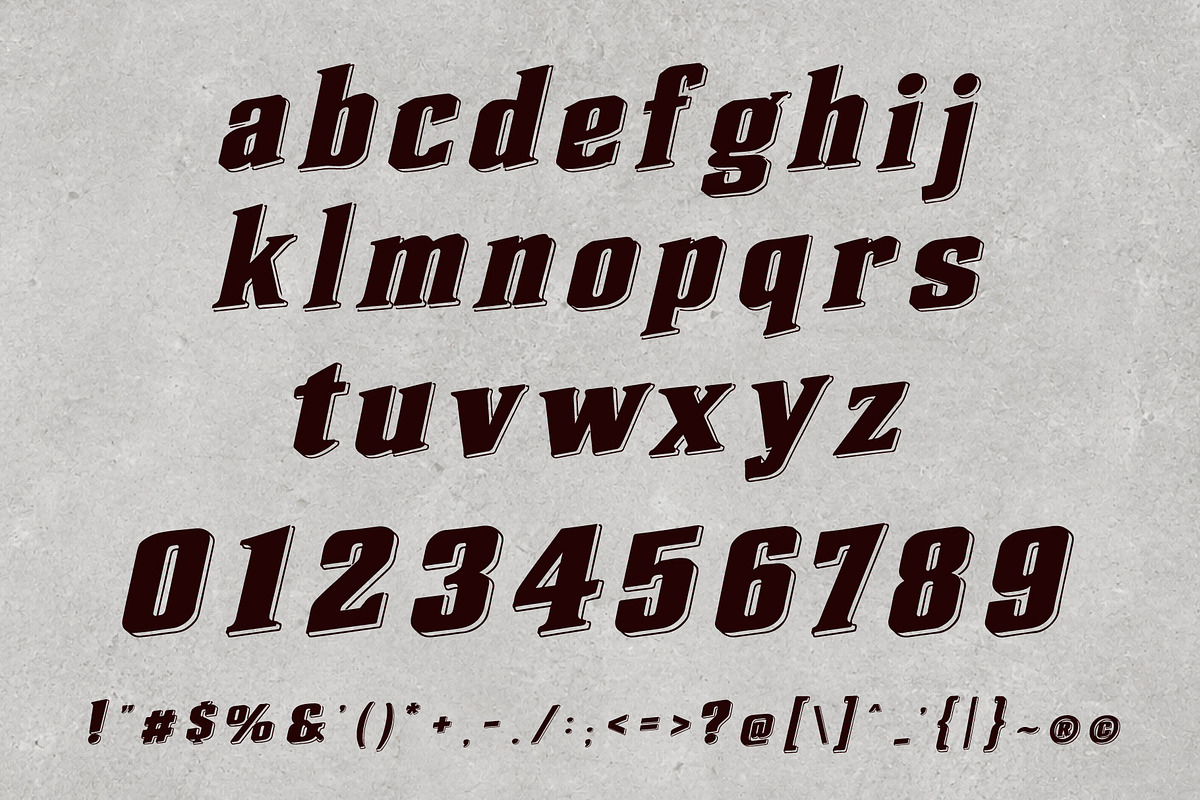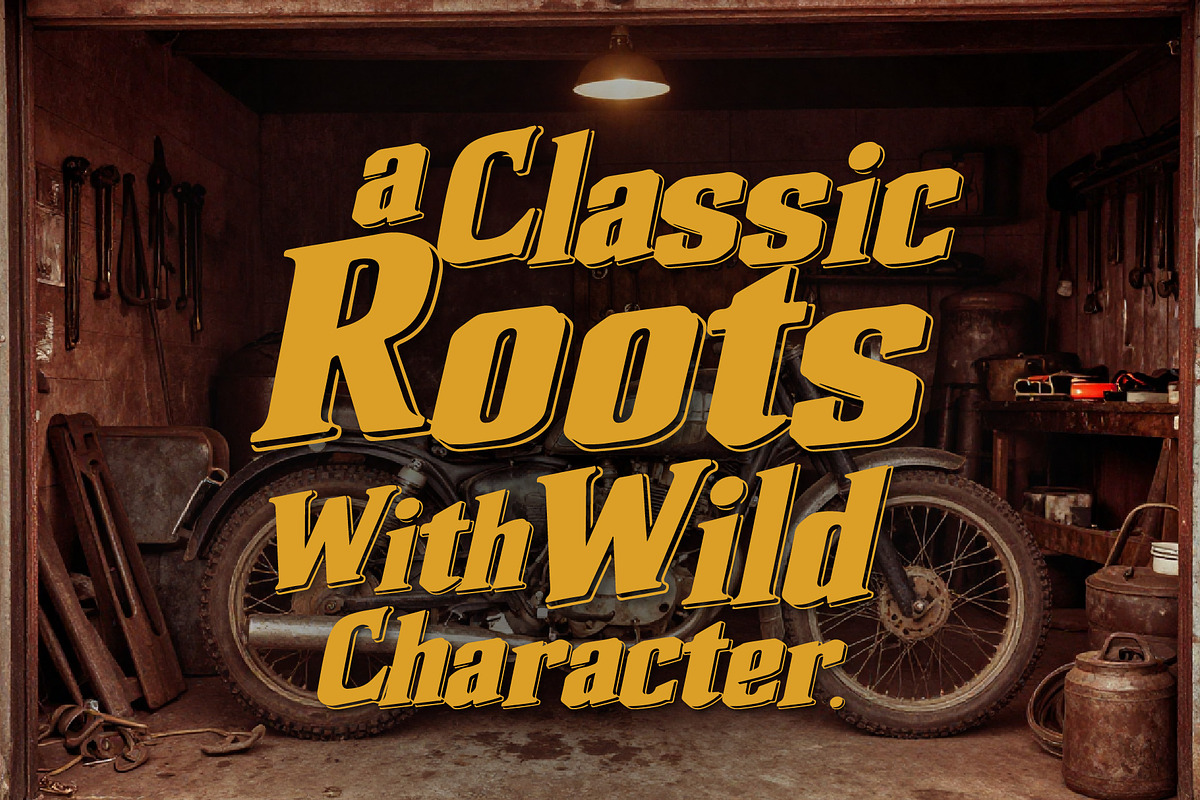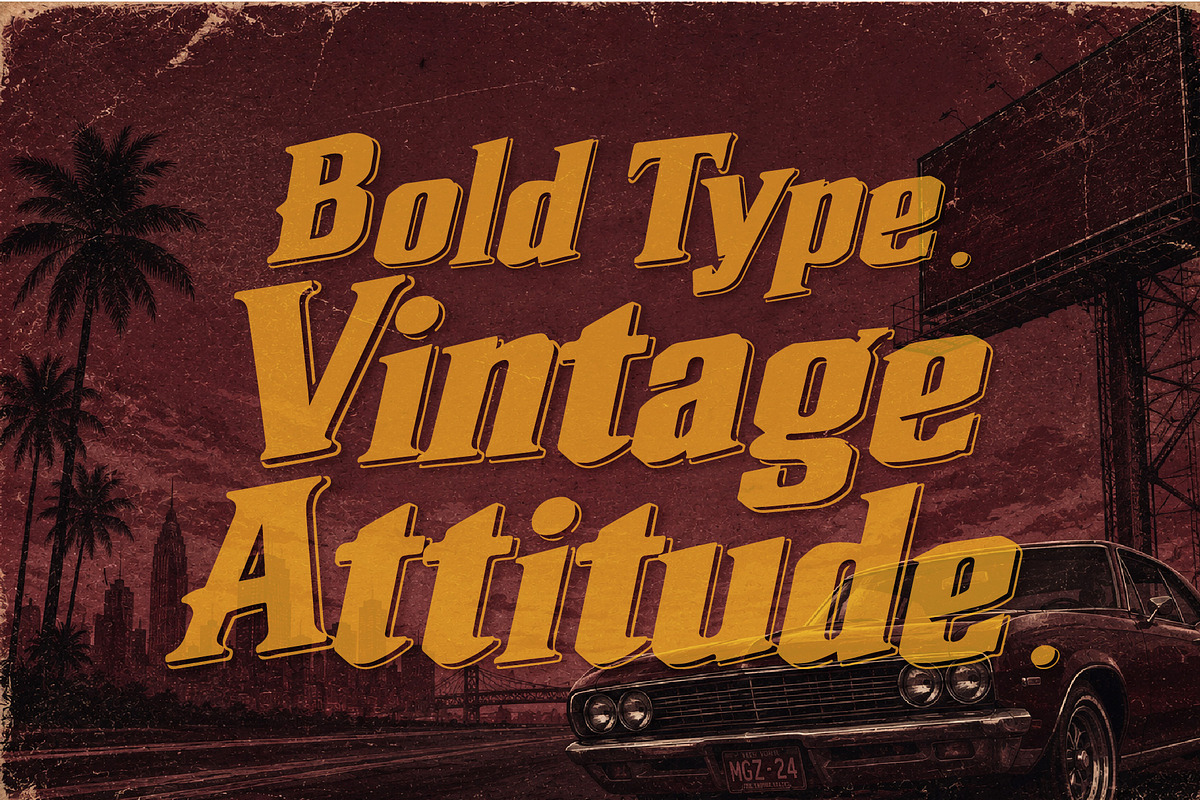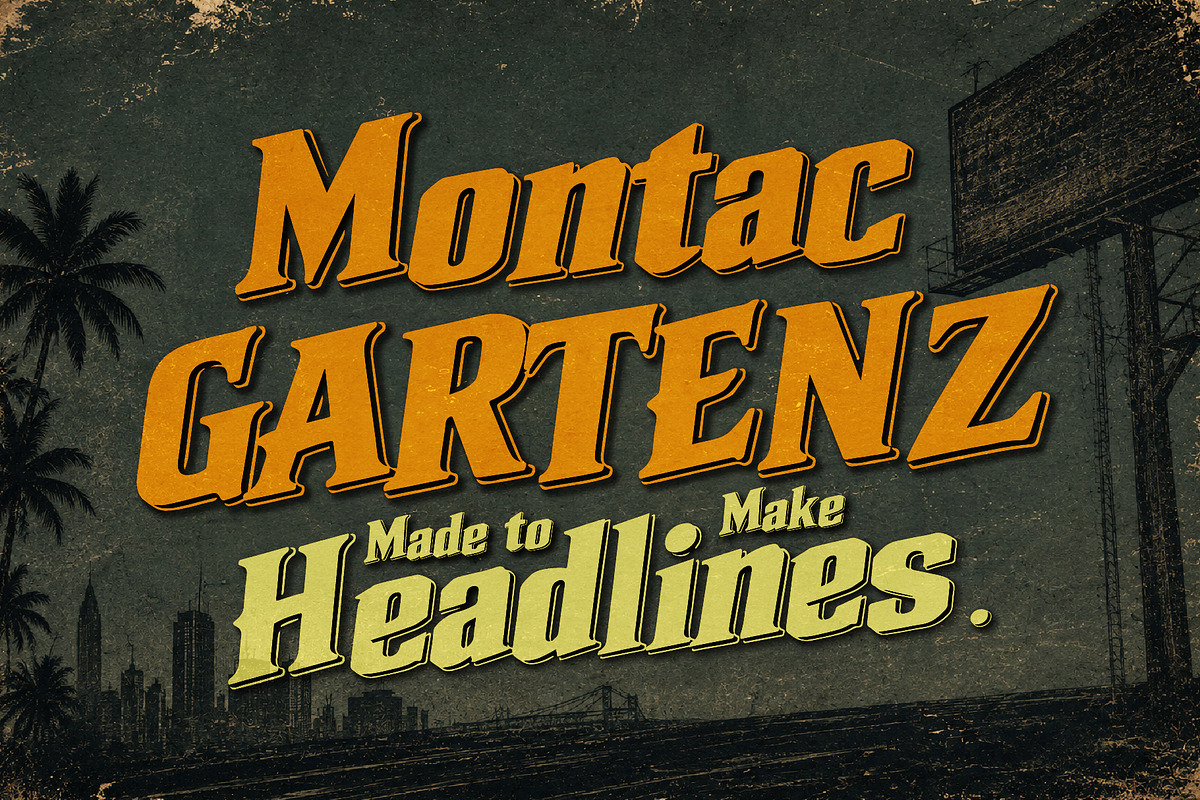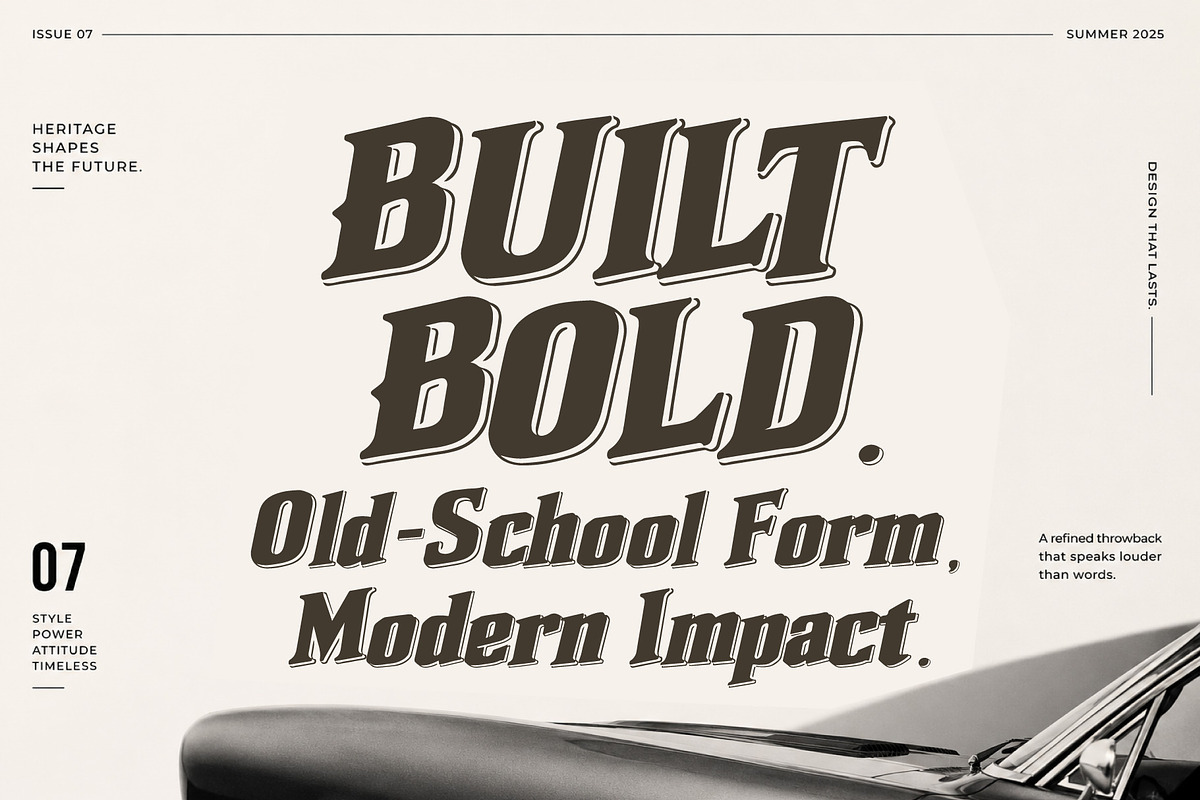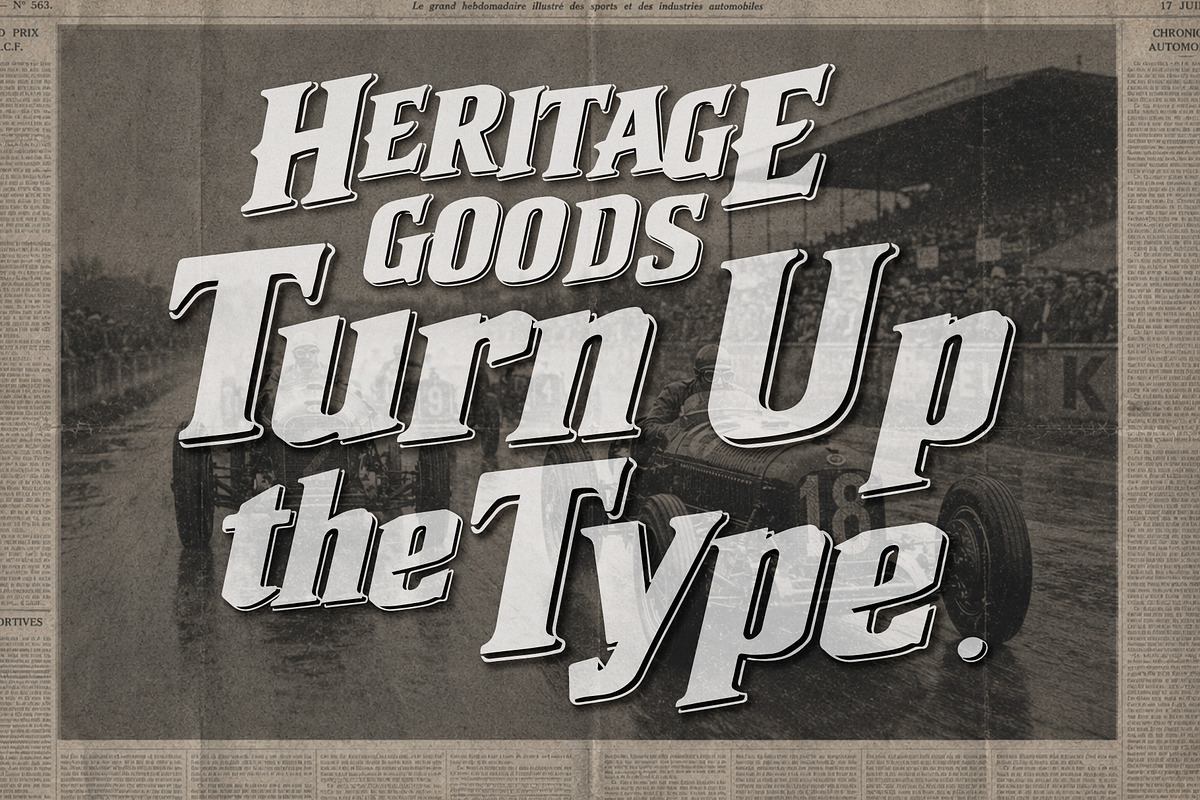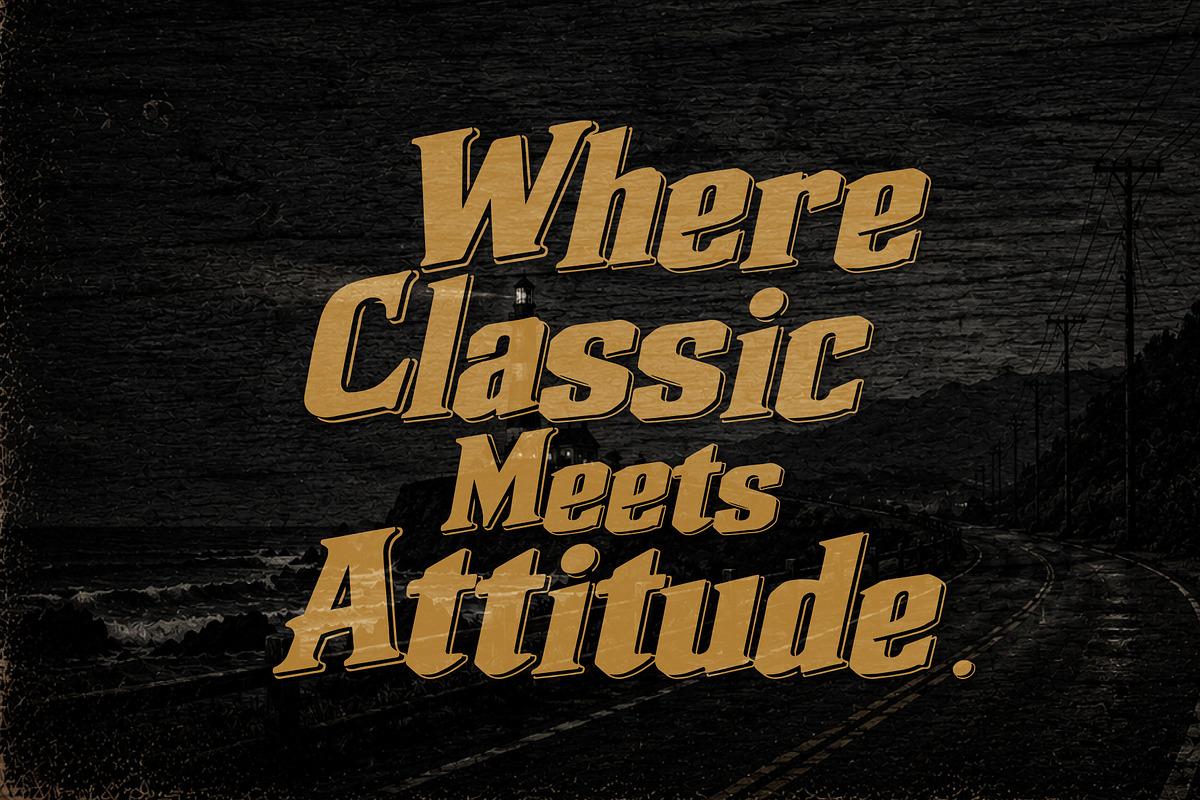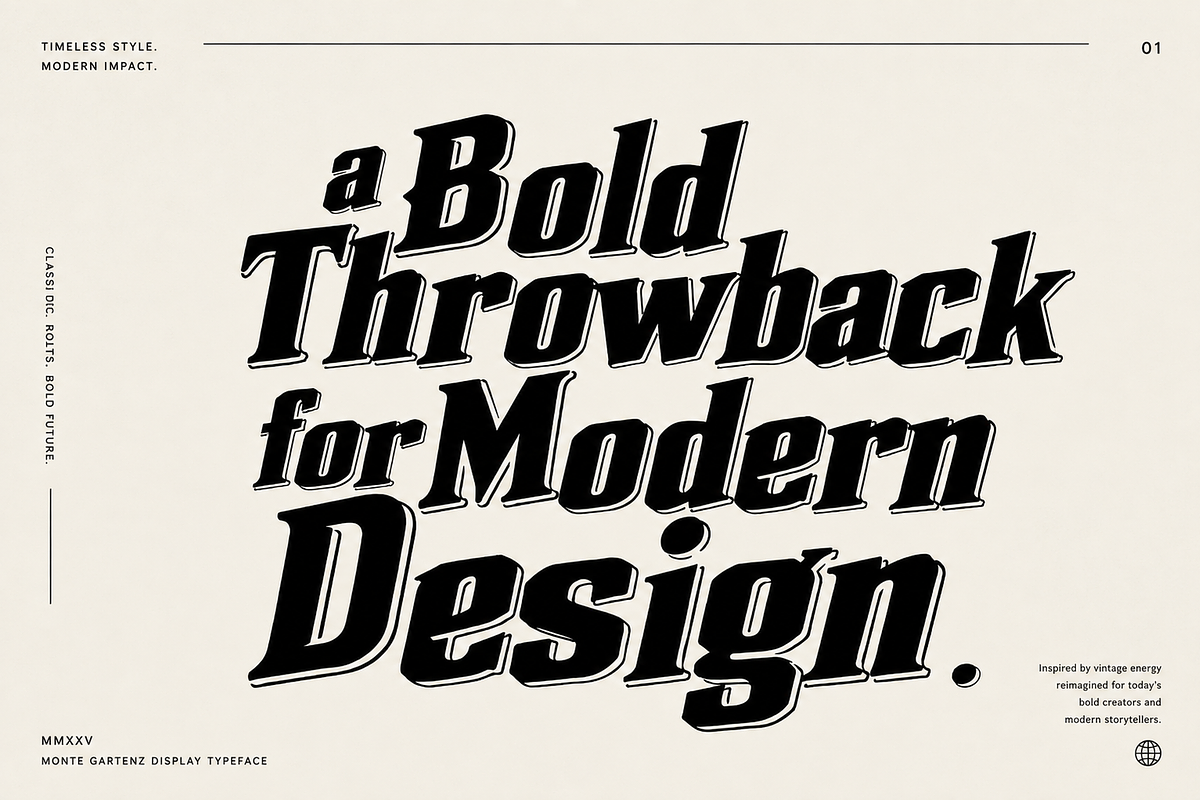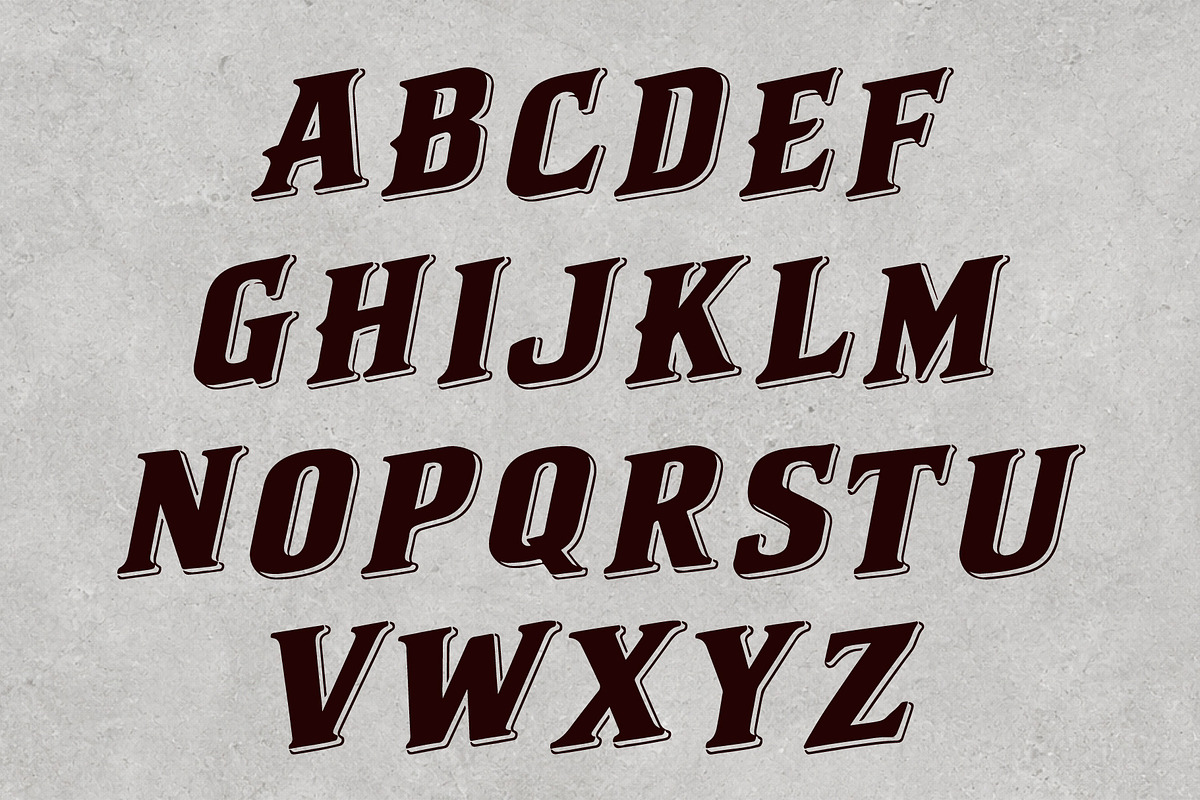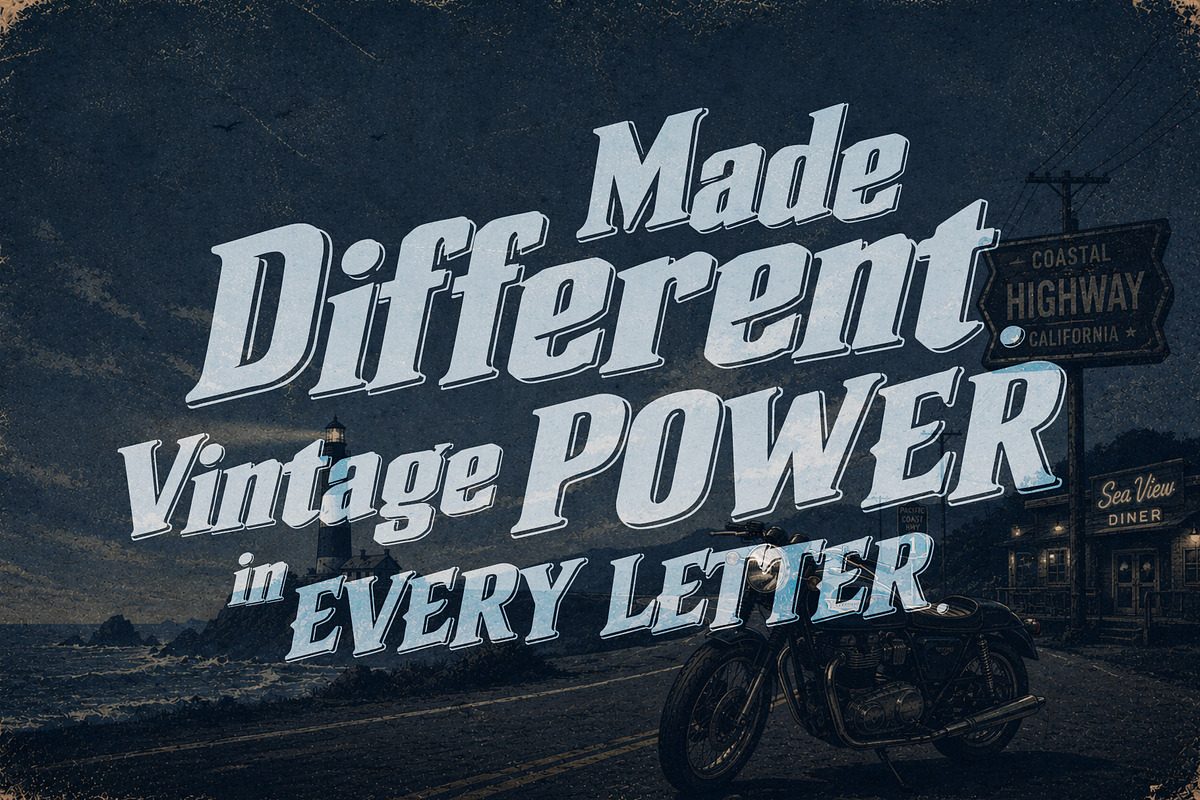
Montac Gartenz - Vintage Power
Montac Gartenz is a bold vintage display typeface built for making headlines hit hard. Featuring heavy condensed forms, sharp serif details, dramatic italic movement, and a distinctive offset shadow effect, this typeface blends classic Western typography with retro editorial and collegiate inspired character.
Its strong silhouette makes it perfect for posters, apparel graphics, logos, packaging, album artwork, magazine covers, sports branding, badges, stickers, and eye catching social media designs.
Montac Gartenz brings an instantly recognizable vintage attitude to every word bold, stylish, and unapologetically expressive. 🔥